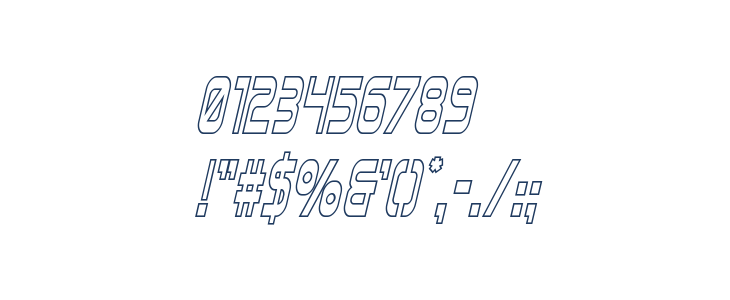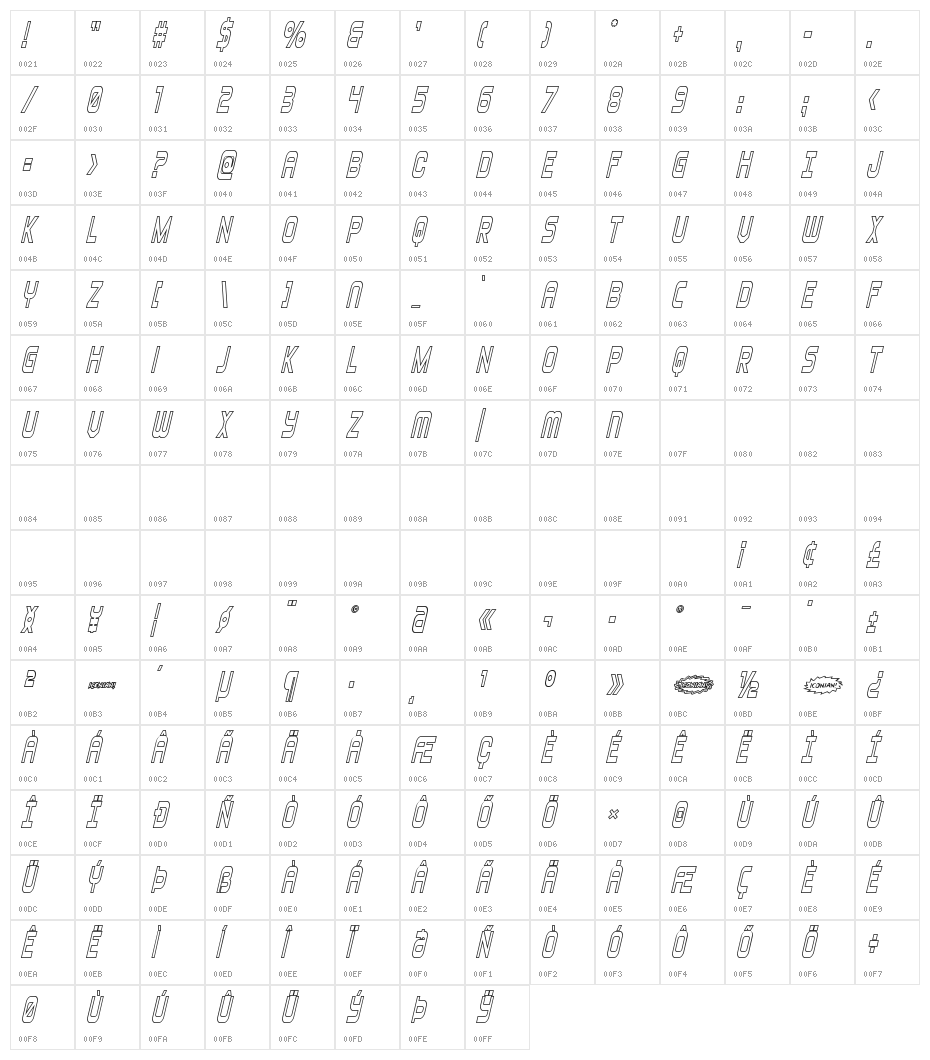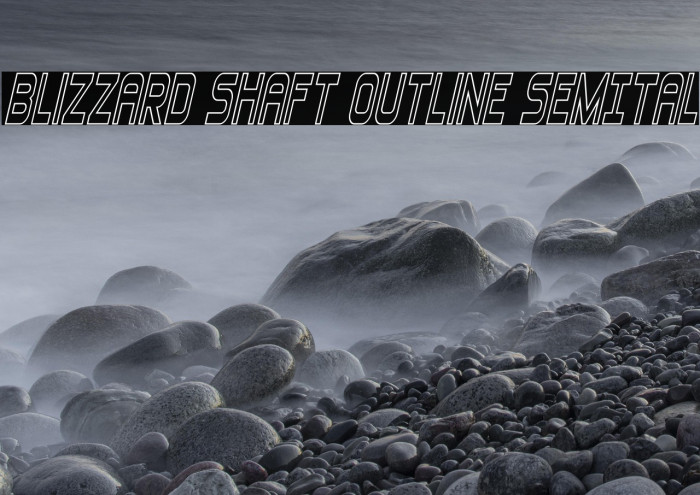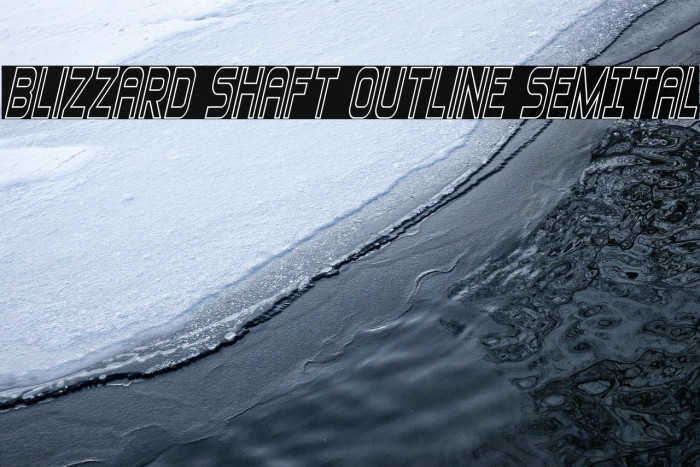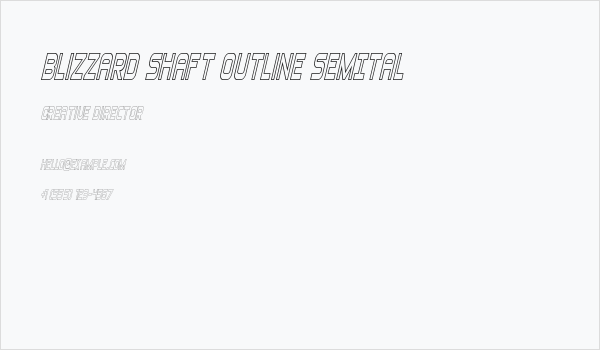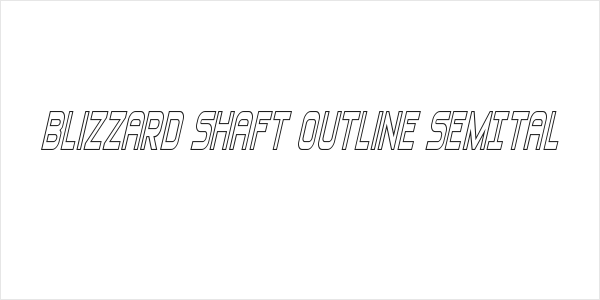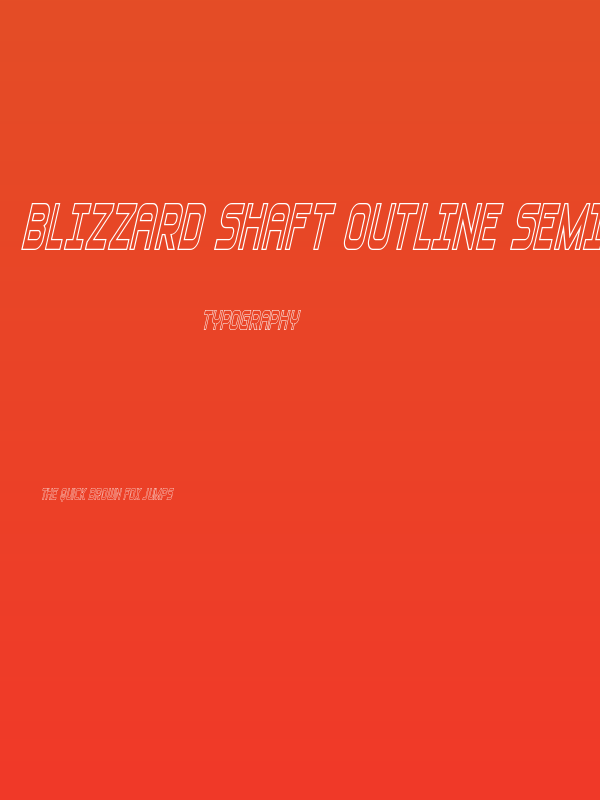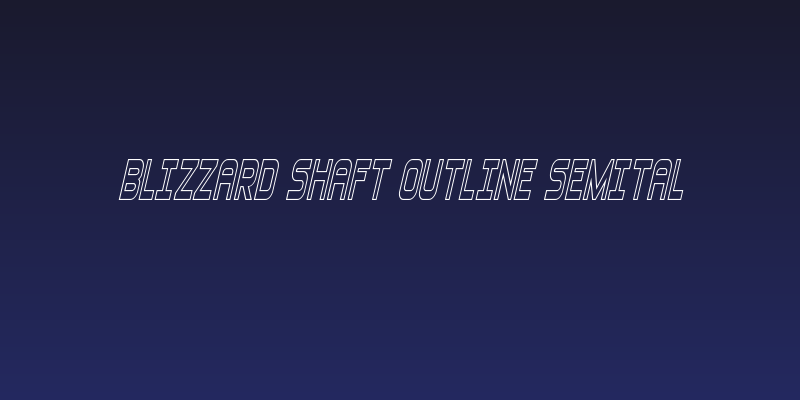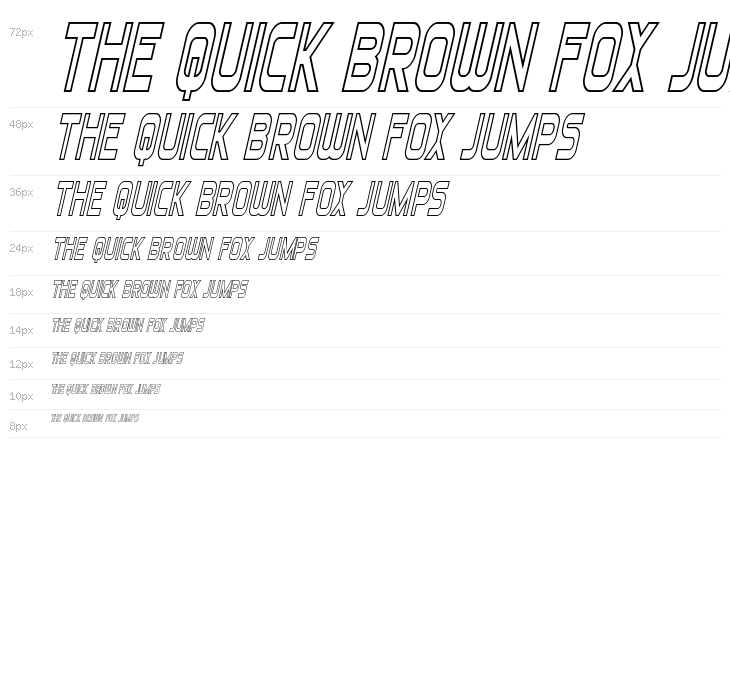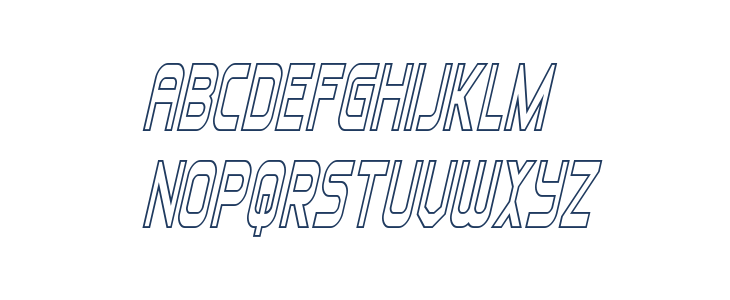
Blizzard Shaft Outline SemItal Font
Blizzard Shaft Outline SemItal Description
This font features a bold, outlined style with a semi-italic slant, giving it a dynamic and modern appearance. The characters are uppercase and lowercase letters, along with numbers and special symbols, all designed with a consistent outline that adds depth and emphasis. The semi-italic angle provides a sense of motion and energy, making it stand out in various design contexts. The font's geometric structure is clean and precise, offering a futuristic and edgy look suitable for contemporary projects.